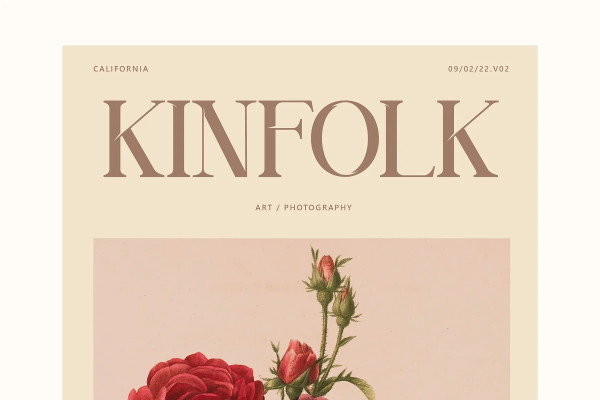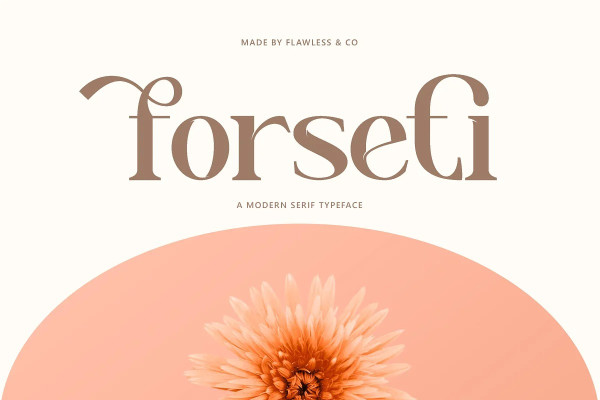
Forseti Font
Forseti Font is a sophisticated, charming serif font with a fashionable touch. Specially designed for luxury, elegant, feminine projects, this font is perfectly suitable for creating modern, chic designs.